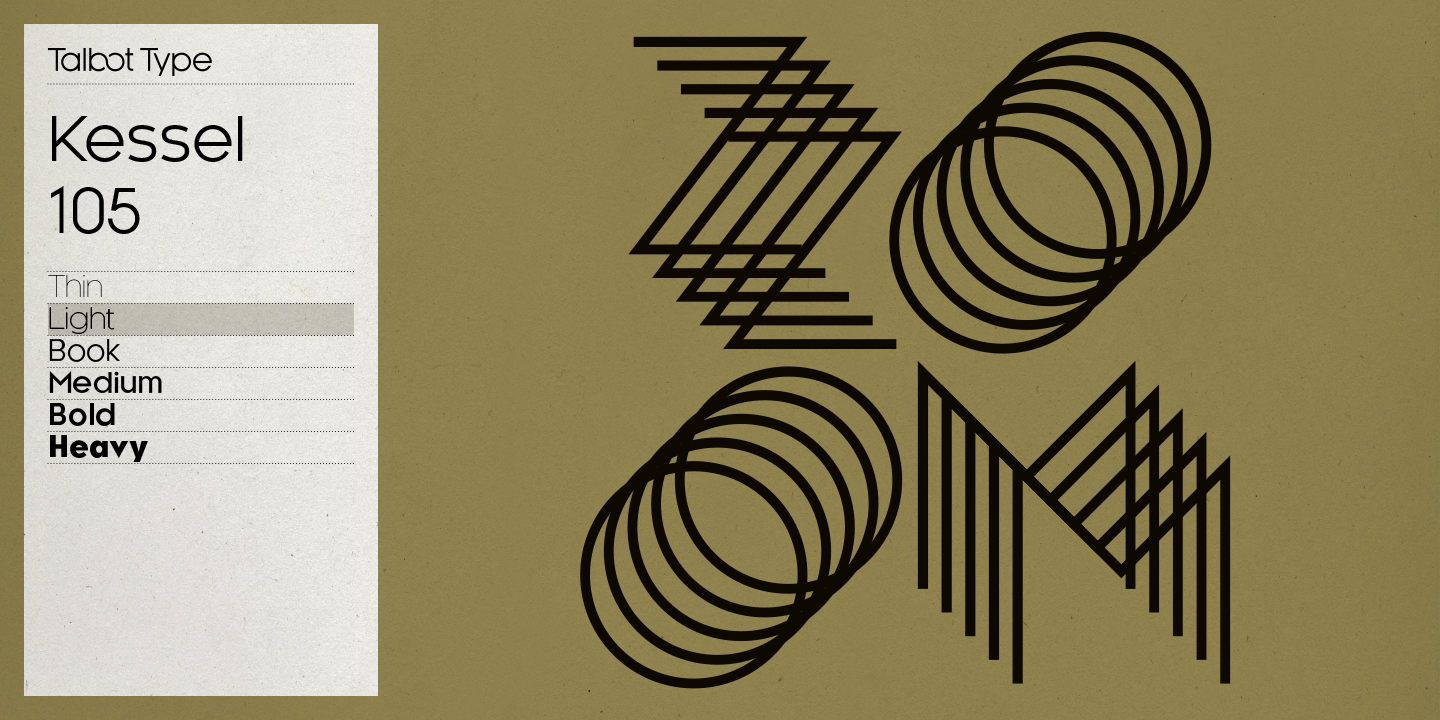
Kessel 105 Font is a robust and distinctive typeface, often characterized by its strong, geometric forms and a slightly technical or industrial feel. Imagine this font being used for bold signage for a new urban development, conveying strength and modernity. It's also an excellent choice for branding for automotive companies, technology firms, or sports teams, where a sense of power and precision is desired. Furthermore, Kessel 105 Font can bring a commanding presence to headlines in magazines, posters for action movies, or even user interface elements in gaming, making any message feel impactful and authoritative. Its clear, no-nonsense structure makes it ideal for projects that demand clarity and a contemporary edge.
What makes Kessel 105 Font truly exciting is its powerful visual presence and its ability to communicate strength and reliability. It often features clean lines, well-defined angles, and a solid construction that gives it a serious yet stylish appeal. This isn't just a stylistic choice; it evokes a sense of efficiency and forward-thinking design, making it perfect for projects that aim to project confidence and innovation. It stands out from more decorative typefaces, offering a utilitarian beauty that is both highly functional and aesthetically pleasing. For designers looking to inject their work with a sense of modern authority and unwavering clarity, Kessel 105 Font offers a genuinely compelling solution.
Kessel 105 Font Family
Kessel 105 Font typically comes with a well-structured family designed to offer comprehensive versatility across various design applications. You will often find it available in a wide range of weights, such as Light, Regular, Medium, Bold, and sometimes even Black or Heavy, allowing for diverse typographic hierarchies. Many geometric sans-serif families like Kessel 105 also include Italic styles that complement the upright versions, adding an extra layer of emphasis. Furthermore, you might find condensed or extended versions, providing even more flexibility for fitting text into different layouts while maintaining the font's core identity.